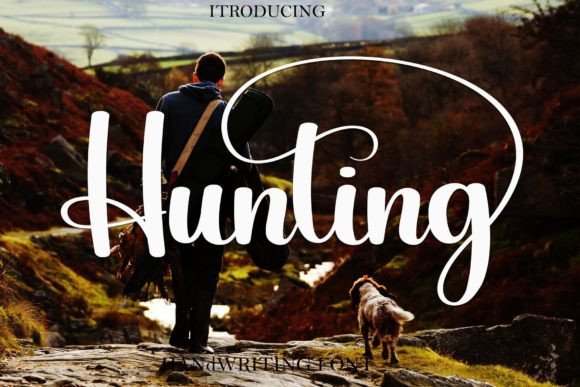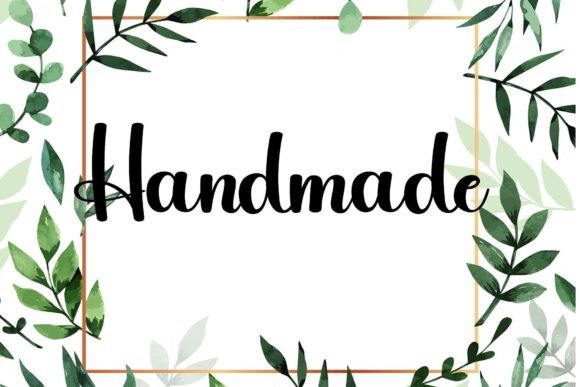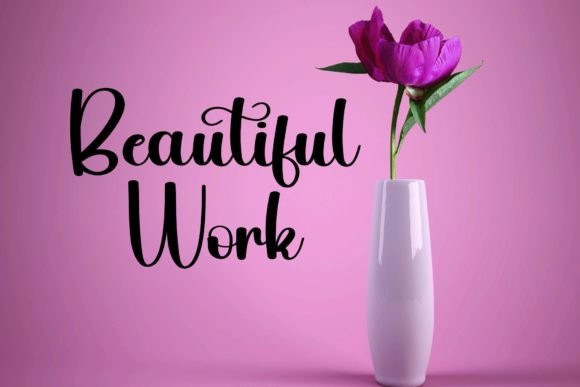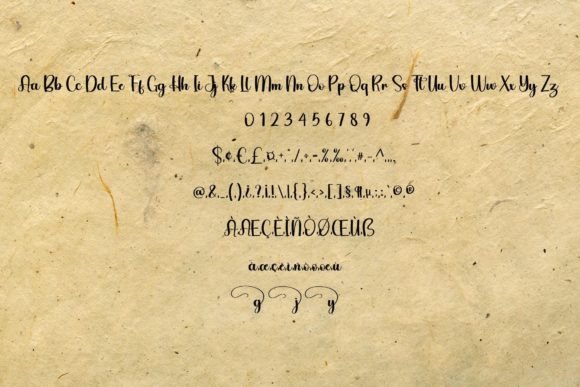
About Hunting Font
“Hunting” is not just a font; it’s a sweet, whimsical, flowing, and thin script typeface that adds a touch of luxury to your design projects. With characters that dance along the baseline, “Hunting” brings a unique and playful charm, making it a perfect choice for creating visually appealing and luxurious designs.
The sweet and whimsical qualities of “Hunting” make it a versatile font for various design applications. Whether you’re working on invitations, branding materials, or any other creative endeavor, this font adds a luxurious spark that elevates the overall aesthetics.
Imagine “Hunting” gracing your designs, creating a visual experience that is both flowing and whimsical. The thin script style enhances the elegance of your projects, making them stand out with a touch of sophistication.
For branding purposes, “Hunting” becomes a key element in creating a luxurious and distinctive visual identity. Its flowing characters contribute to a unique and memorable brand representation.
In invitations and other elegant designs, “Hunting” serves as a font that adds a touch of whimsy and luxury. The dancing characters along the baseline create a playful yet sophisticated atmosphere, making it suitable for a variety of special occasions.
Whether you’re working on print materials, digital designs, or any other creative project, “Hunting” is a design companion that brings a sweet and luxurious touch. Let “Hunting” be the typeface that adds a spark of whimsy to your creations, making them truly enchanting and delightful.